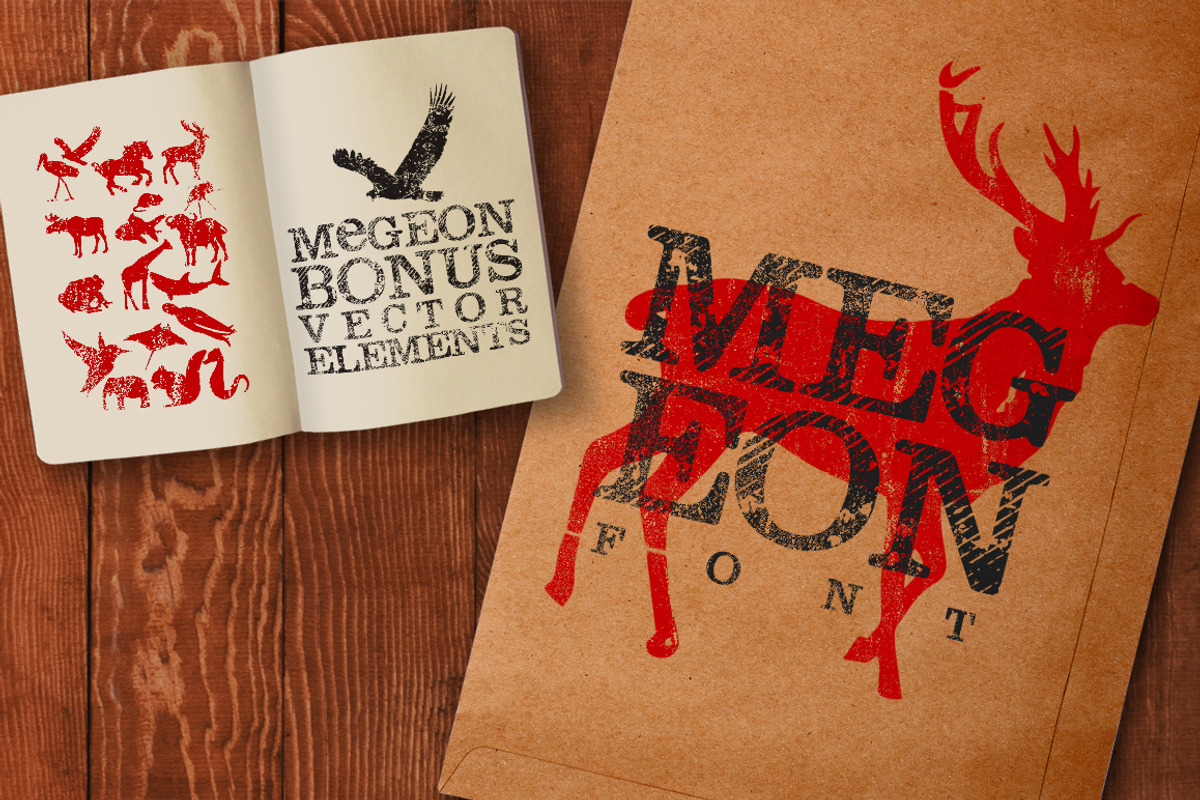
Megeon Font + Vector Bonus
Megeon Font + Vector Bonus by Leonard Posavec is a font selected for branding, posters, packaging, typography.
Why Megeon Font + Vector Bonus is worth a look
Megeon Font + Vector Bonus by Leonard Posavec fits naturally into Branding, posters, packaging, typography.